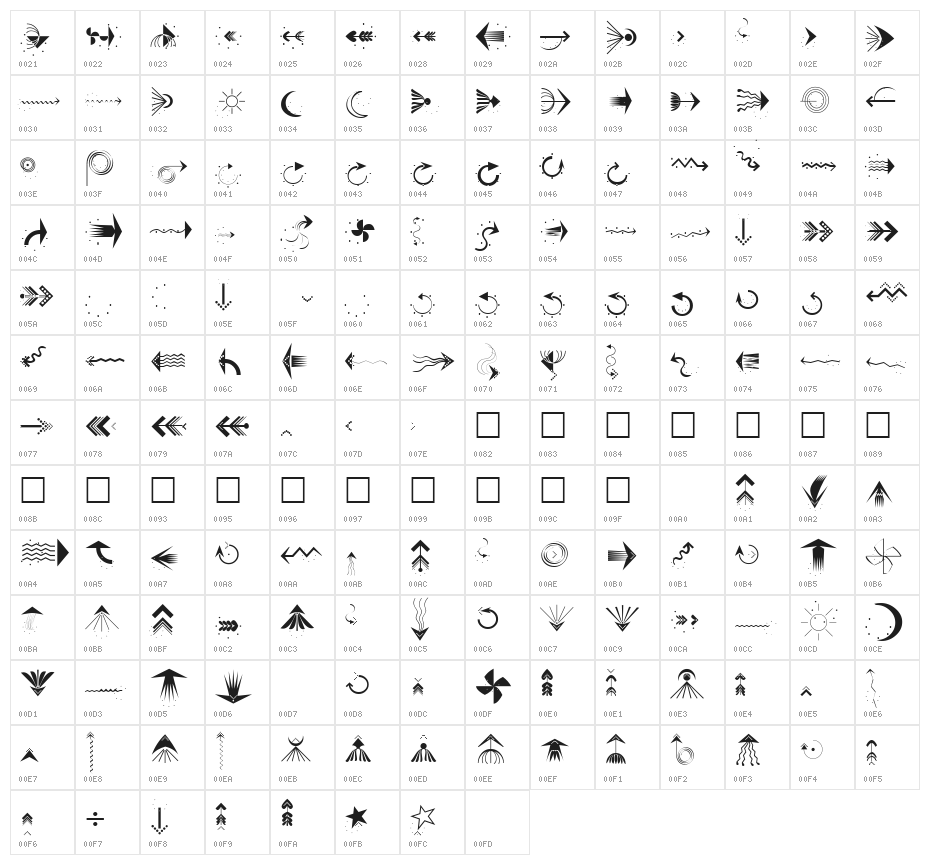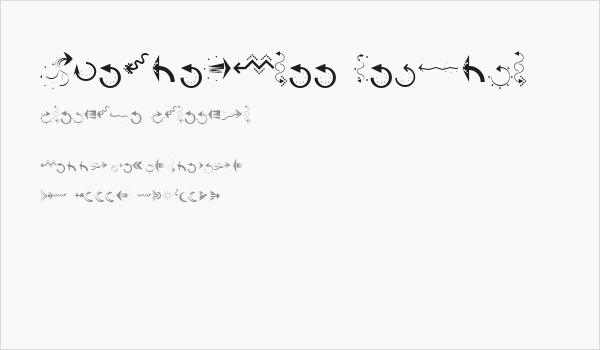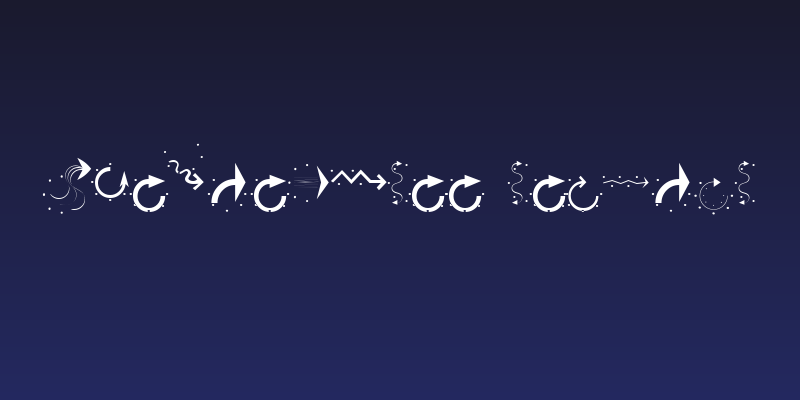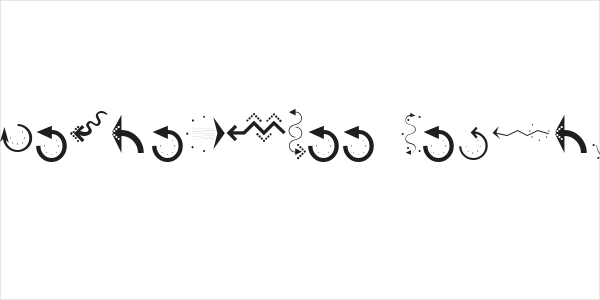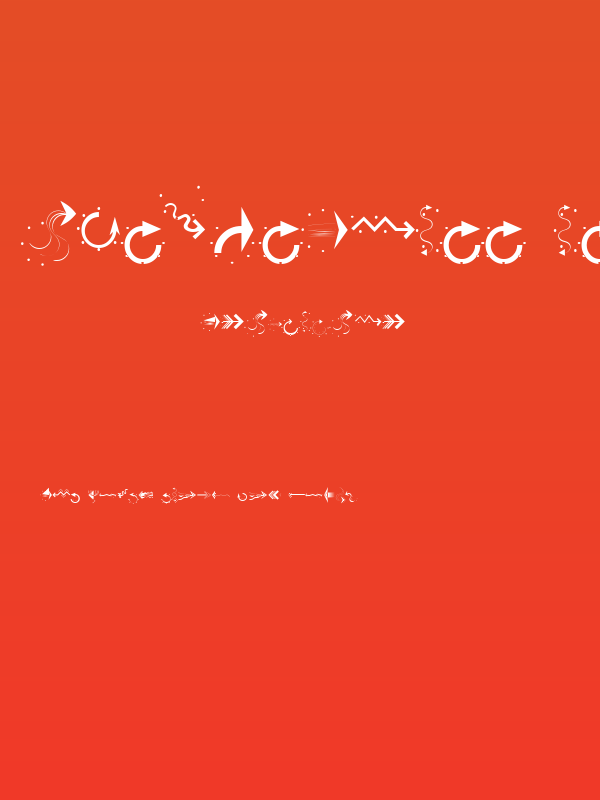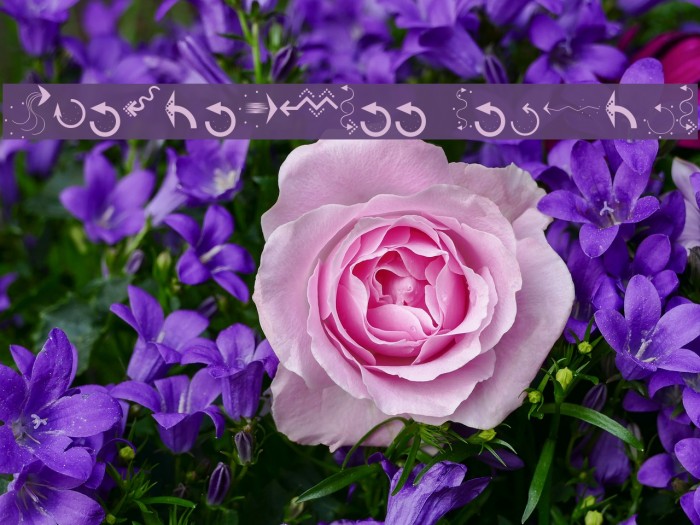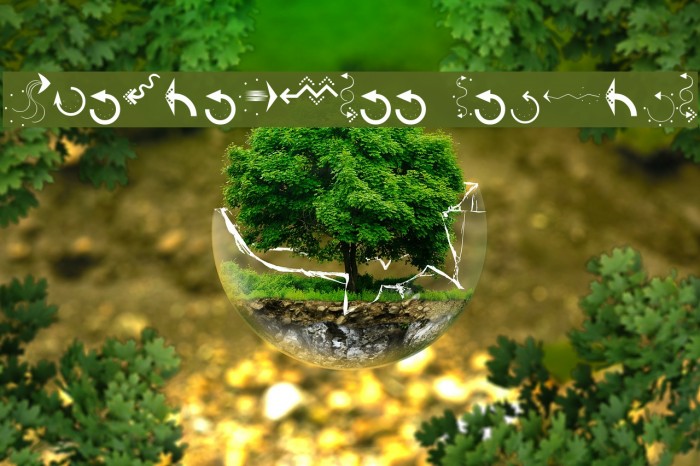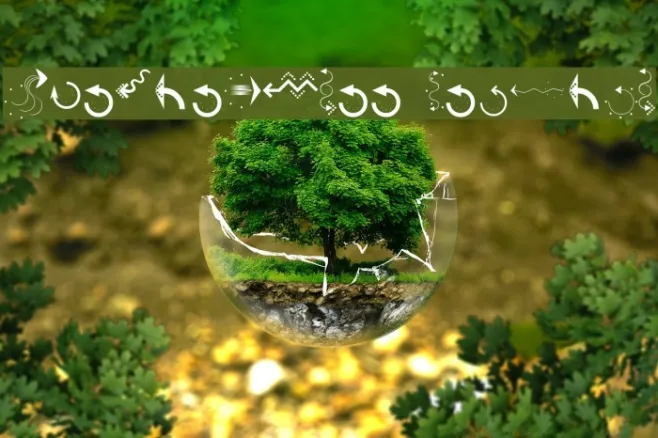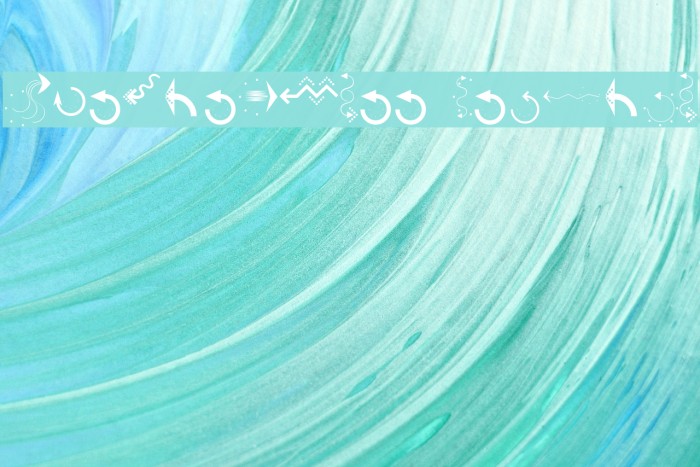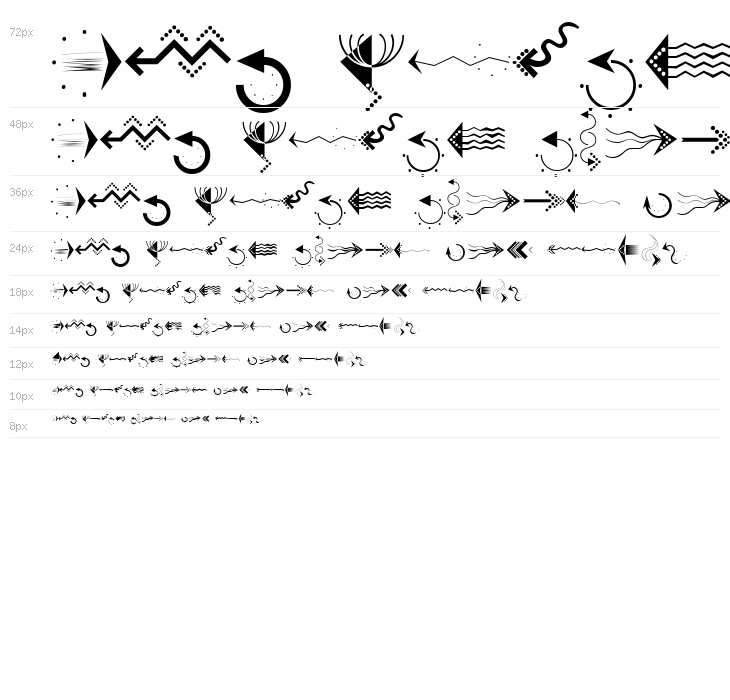
PfeileThree Regular Font
PfeileThree Regular Description
A highly decorative and illustrative dingbat font consisting of a wide variety of unique arrow designs, including curved, zigzag, dotted, and stylized motifs, as well as additional symbols like suns, moons, and abstract shapes. Each glyph is visually distinct, with playful and artistic elements, making it suitable for creative and ornamental purposes.
| Overall Style | Decorative, Playful, Artistic |
| Use Case | Icons, Decorative elements, Infographics, Visual accents |
| Proposed Projects | Infographics, posters, creative presentations, decorative dividers, scrapbooking, and editorial design. |